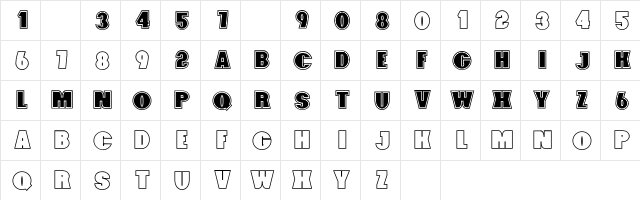
Foxxy Outline is built around its visual character rather than neutral utility - its distinctive forms are designed to make an impression at display sizes.
Font Pairing: Pair with a clean neutral sans-serif for body copy to let Foxxy Outline's character lead without overwhelming the composition.
Pro Tip: Use Foxxy Outline exclusively at display sizes - it was designed to be seen, not read at length. Let a neutral companion handle body copy.